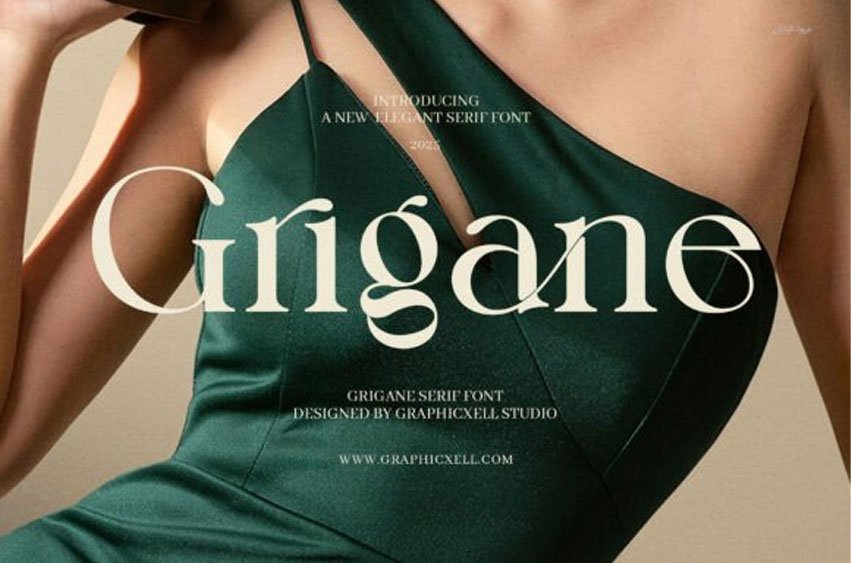
Grigane Font is a refined and modern typeface designed to infuse sophistication and uniqueness into your designs. With its meticulously crafted serifs and timeless letterforms, Grigane brings a fresh, luxurious feel to any project. Its sleek elegance makes it the perfect choice for creating impactful **logos**, **branding** materials, and polished **websites** that demand attention.
Grigane excels in both **print** and **digital formats**, effortlessly enhancing **magazines**, **advertisements**, **product packaging**, and **layout designs**. The font’s distinctive, yet highly readable style ensures your message stands out, whether you’re creating marketing collateral for a **boutique**, a **luxury brand**, or a **fashion label**. Its elegant yet modern flair elevates your designs to a new level of professionalism.
Perfect for **food branding**, **high-end products**, and even **corporate identities**, Grigane’s unique character adds an air of sophistication and charm to any project. Whether you’re designing for **upscale businesses**, creating eye-catching **product labels**, or working on exclusive **magazines**, this font ensures your designs radiate elegance and class.
With its balanced, graceful design, **Grigane Elegant Serif Font** is the ideal choice for anyone looking to make a lasting impression. Its seamless blend of contemporary style and timeless beauty will enhance your creative projects, making them not only visually stunning but also memorable.